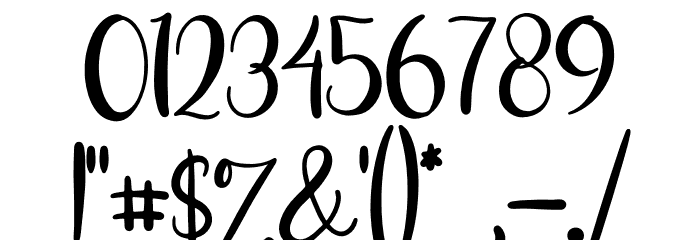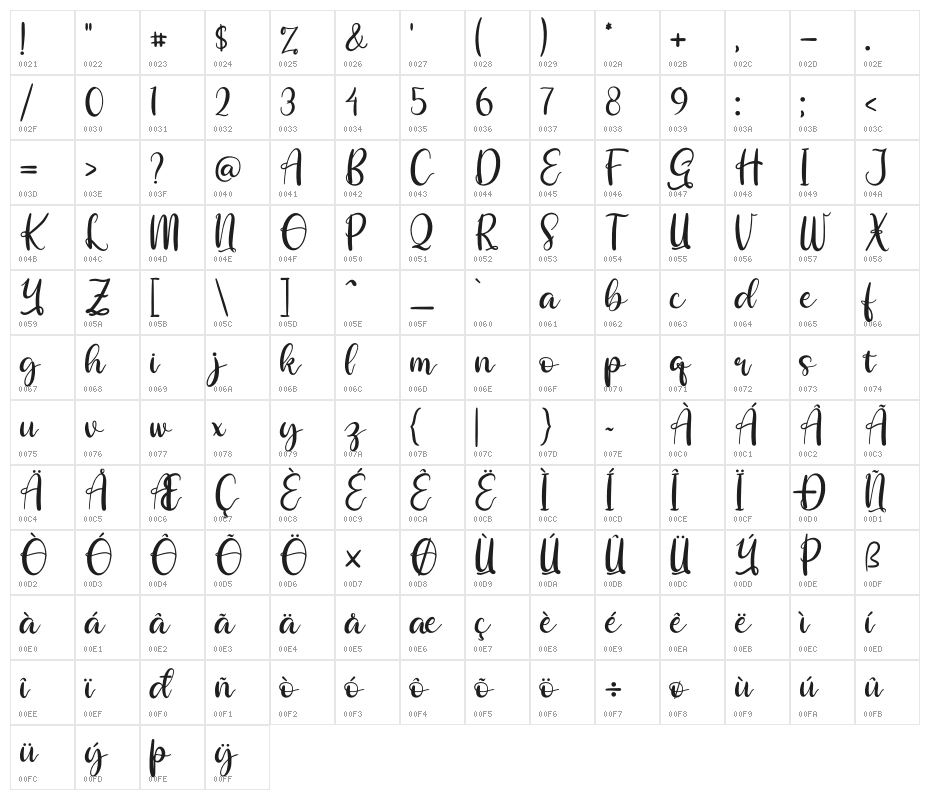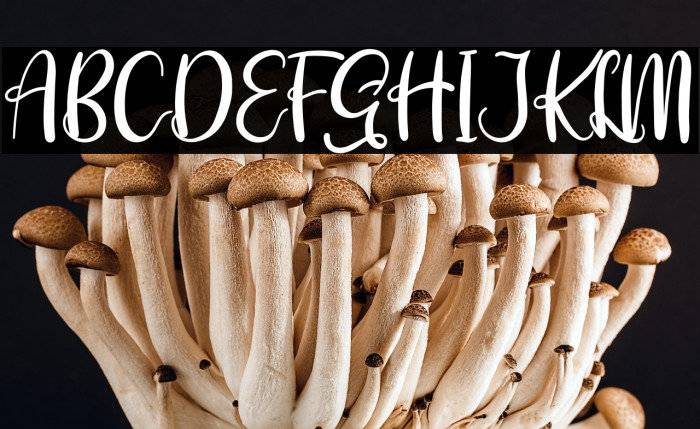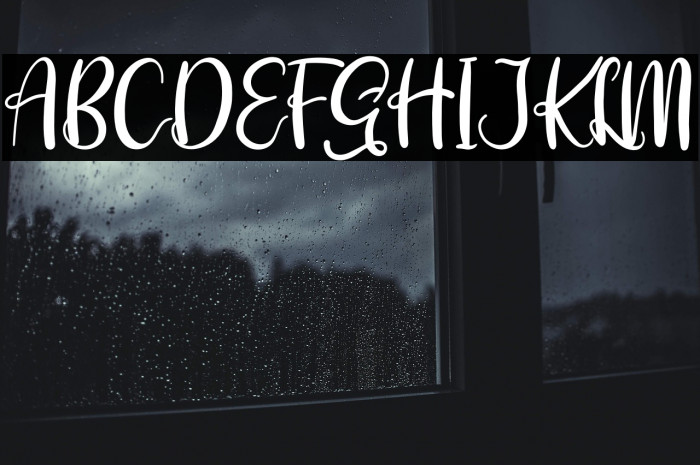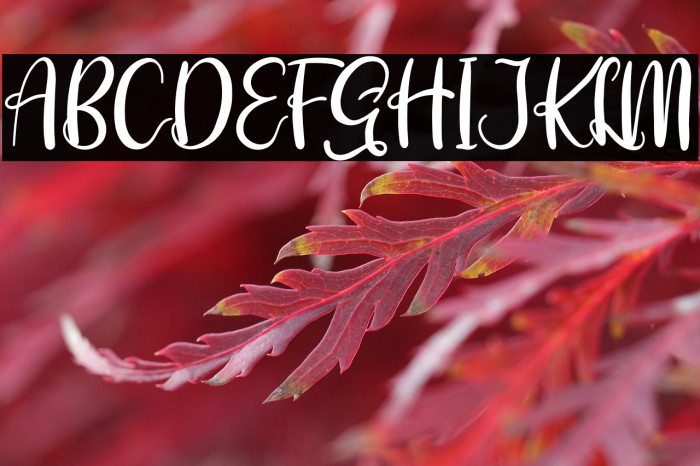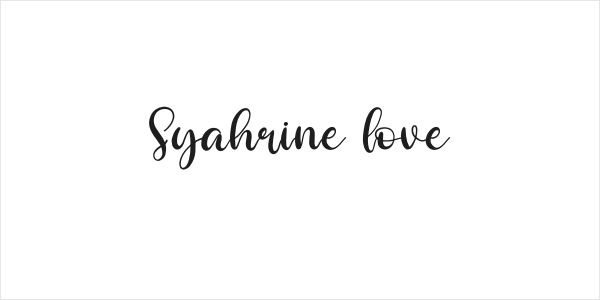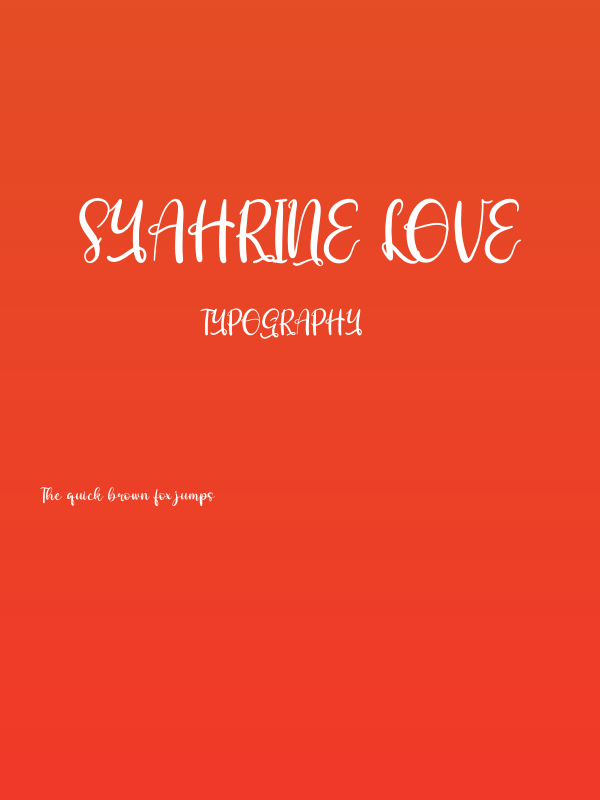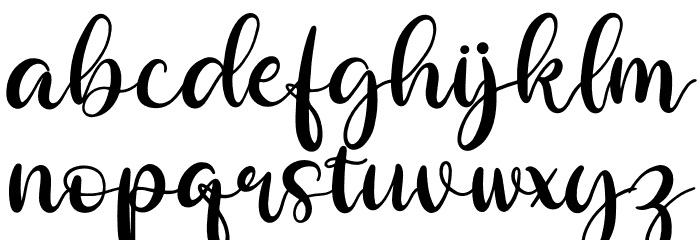
Syahrine love Font
Syahrine love Description
This font features a flowing, cursive style with elegant loops and swirls, giving it a handwritten appearance. The uppercase letters are bold and expressive, with unique flourishes that add a touch of sophistication. The lowercase letters maintain a consistent style, with smooth curves and a playful yet refined look. Numbers are clear and well-defined, matching the overall aesthetic. Special characters are creatively designed, fitting seamlessly with the rest of the font. This font exudes a sense of elegance and charm, making it suitable for a variety of creative projects.
| Proposed Projects | Ideal for wedding invitations, greeting cards, branding, and social media graphics. |